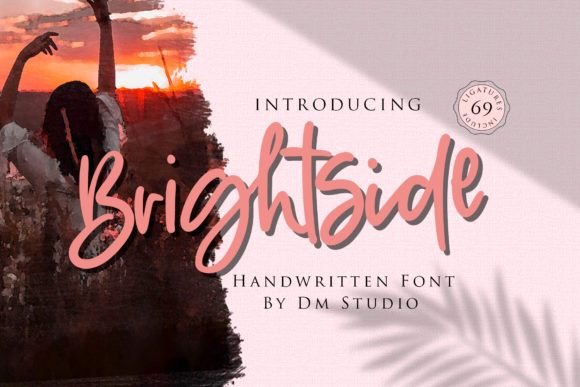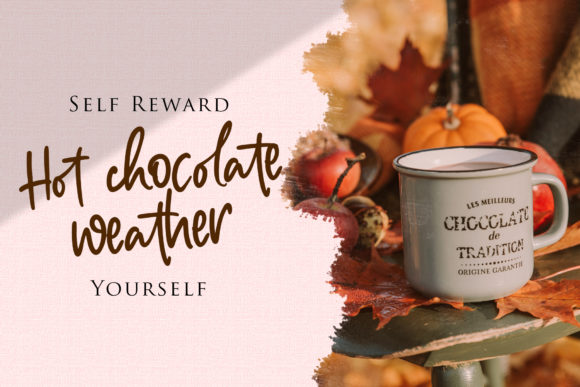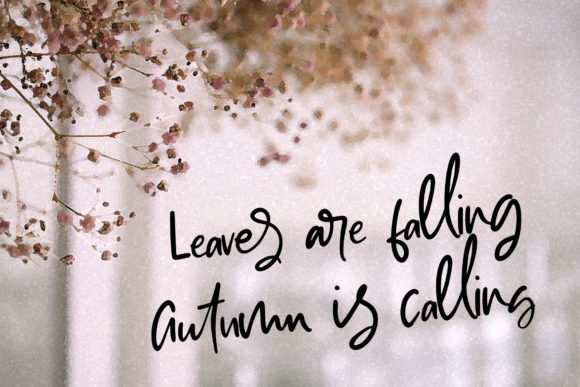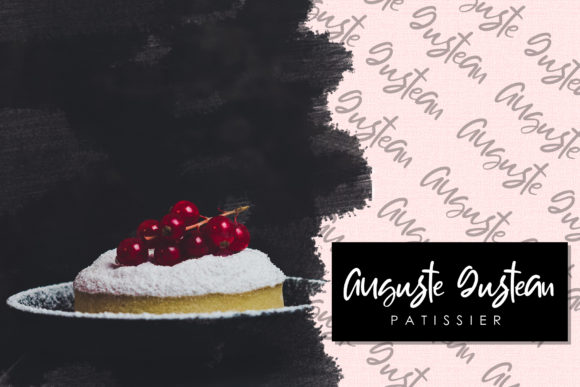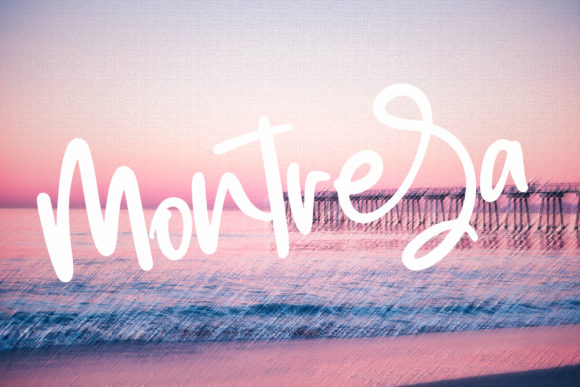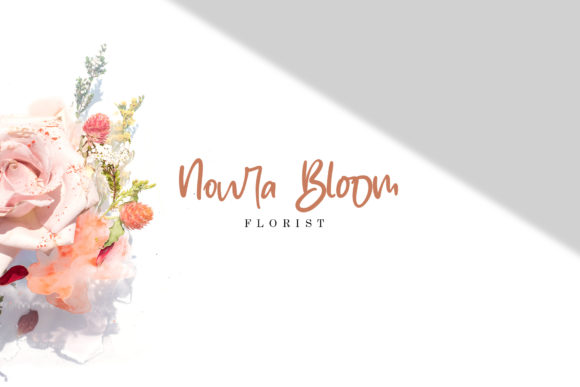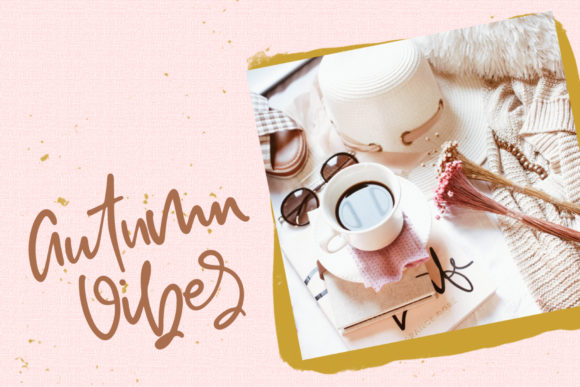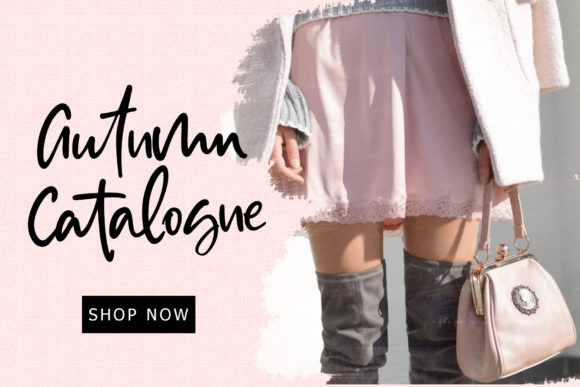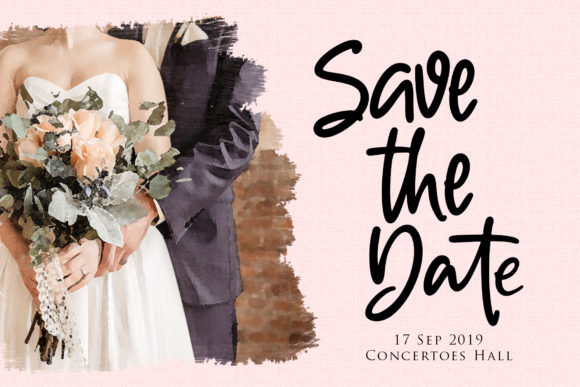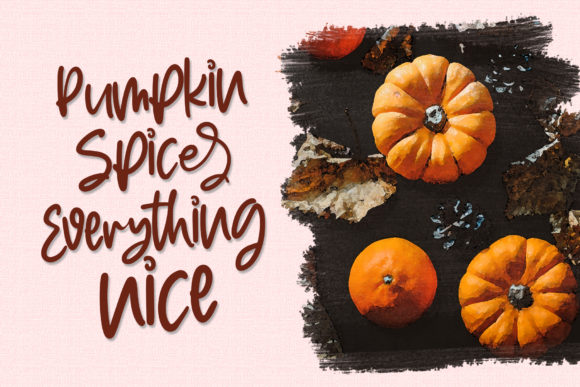
Brightside Font
About Brightside Font
Delicate, expressive and simply charming: Brightside is an extraordinary script with a cool feel. Get inspired by its modern lightness.